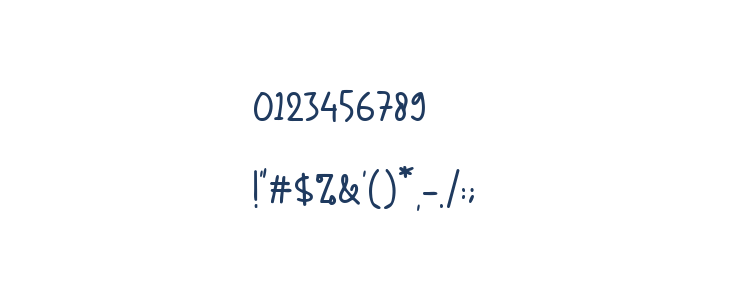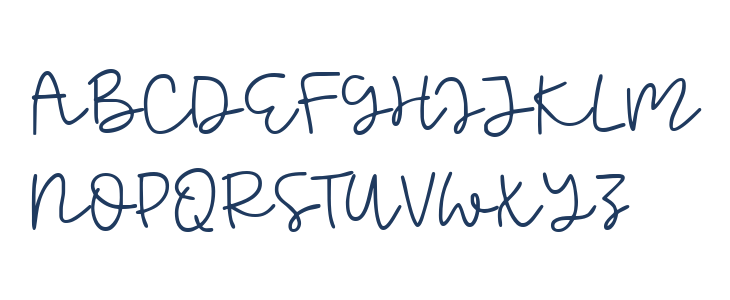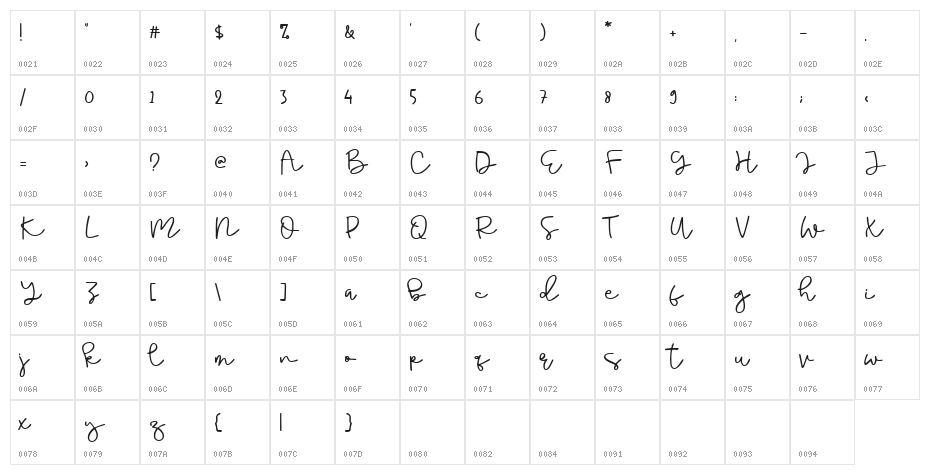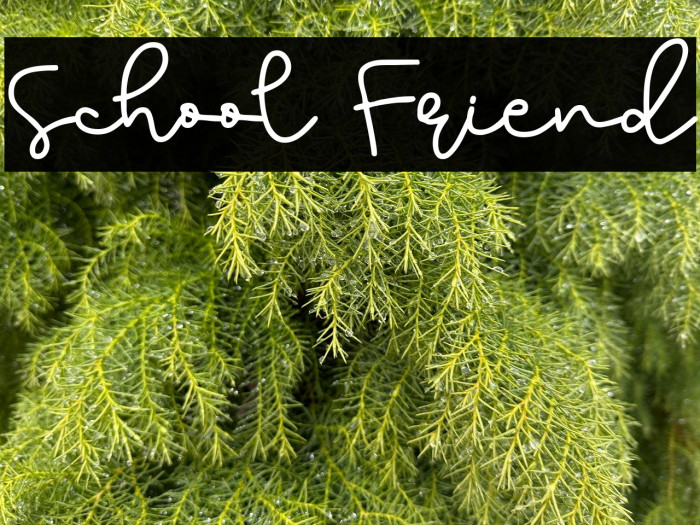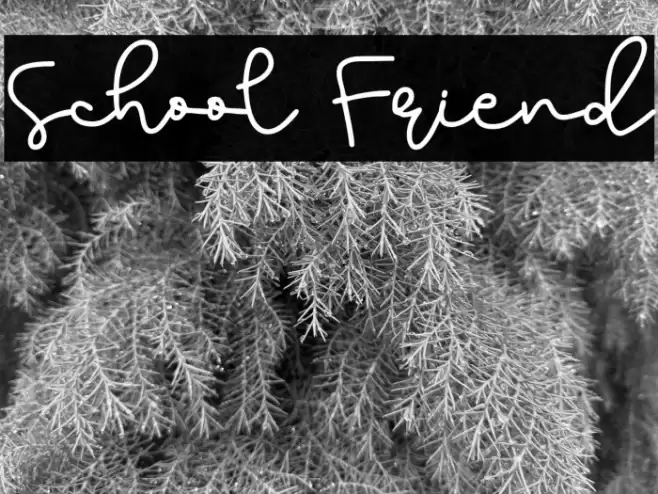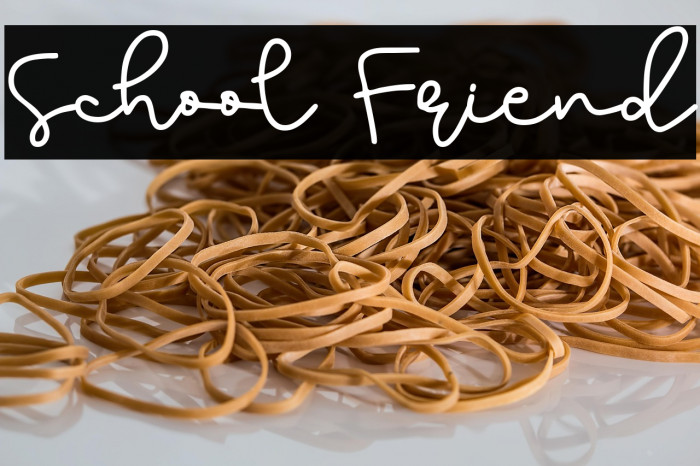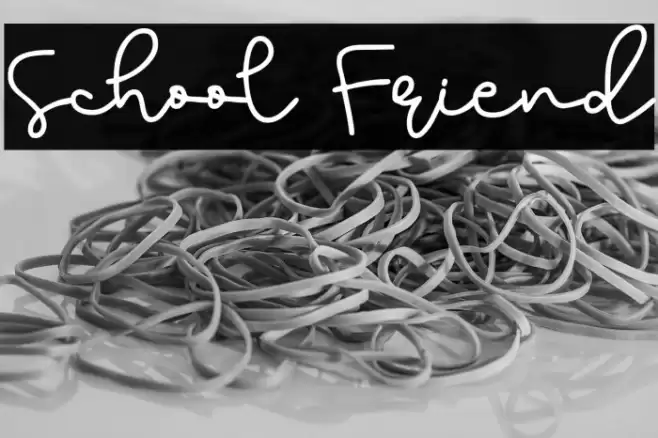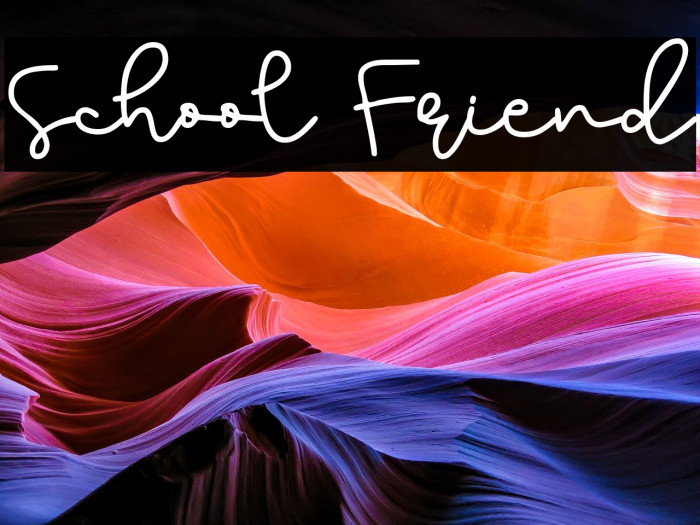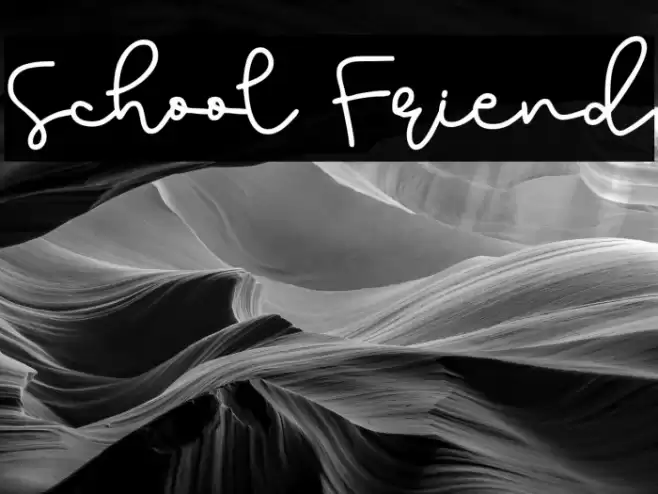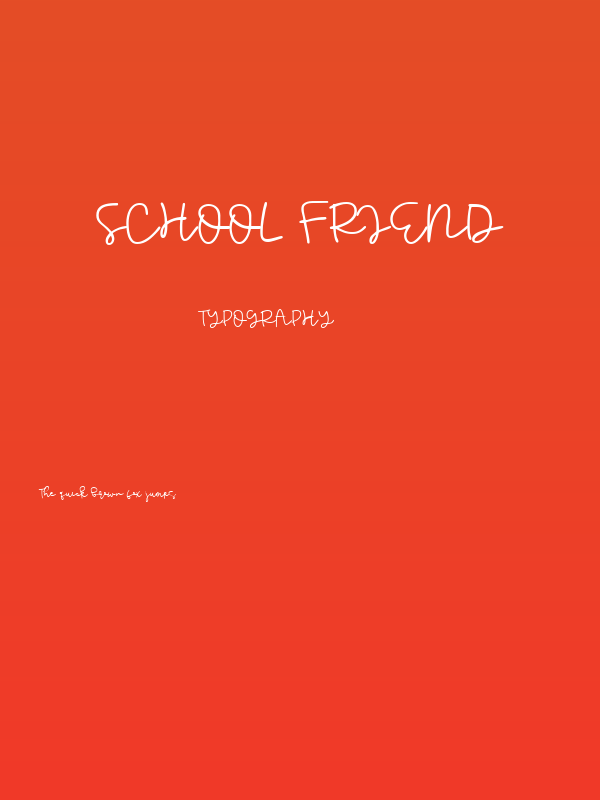
School Friend Font
School Friend Description
A casual, handwritten script font with a playful and informal style, featuring smooth, flowing lines and a slightly irregular stroke width.
| Overall Style | Casual, Playful, Handwritten |
| Use Case | Invitations, Greeting Cards, Personal Branding, Logos |